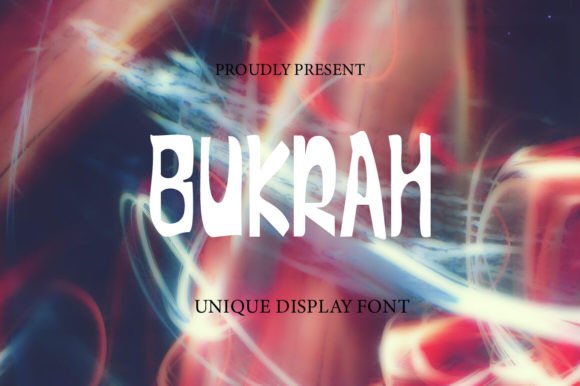
Introducing Bukrah Font: Elevate Your Designs with a Unique Display Style
As a designer, I’ve had my fair share of moments where I’ve struggled to find the perfect font for a project. I recall working on a Christmas-themed design project, searching for a font that would capture the festive spirit while looking modern and professional. That’s when I stumbled upon Bukrah font, a game-changing display font that has since become a staple in my design toolkit.
A Personal Review of Bukrah Font
- ✨ Unique and eye-catching design that’s perfect for display purposes
- ✅ Highly versatile and can be used for various design projects, from Christmas-themed designs to children’s events
- 💡 Supports OpenType features, glyphs, and stylistic alternates, giving you plenty of creative freedom
- 🎨 Comes with a wide range of characters and symbols to enhance your designs
While Bukrah font is an excellent choice for many design projects, there are a few things to keep in mind:
- 🤔 May not be the best choice for body text or long paragraphs, as it’s primarily designed for display purposes
- ⚠️ Some users may find the font a bit too bold or attention-seeking for certain design projects
The Story Behind Bukrah Font
Bukrah font was designed with the intention of creating a unique and versatile display font that would capture the essence of modern design. The font’s creator drew inspiration from various sources, including traditional Christmas fonts and playful, hand-drawn scripts. The result is a font that’s both festive and sophisticated, making it perfect for a wide range of design projects.
| Font Name | Bukrah Font |
| Author | gunaloe12 |
| What is Bukrah font best used for? | Bukrah font is best used for display purposes, such as headings, logos, branding, comics, magazines, product packaging, social media posts, and children’s events. |
| Is Bukrah font suitable for body text? | No, Bukrah font is primarily designed for display purposes and may not be the best choice for body text or long paragraphs. |
| Does Bukrah font support OpenType features? | Yes, Bukrah font supports OpenType features, glyphs, and stylistic alternates, giving you plenty of creative freedom to enhance your designs. |